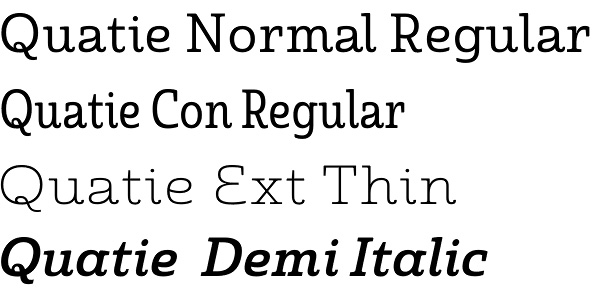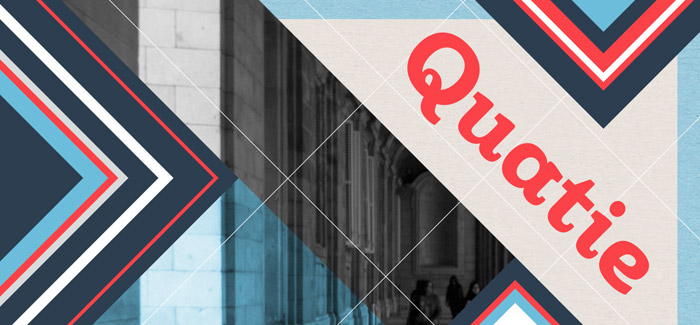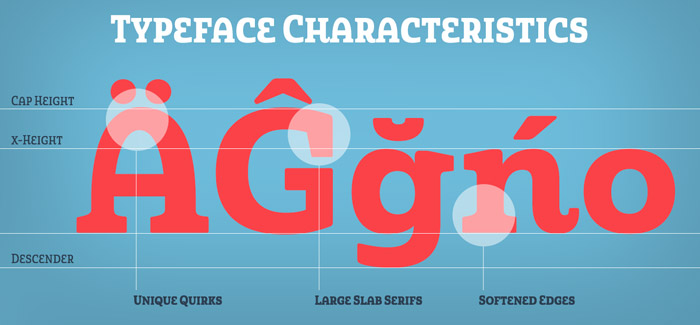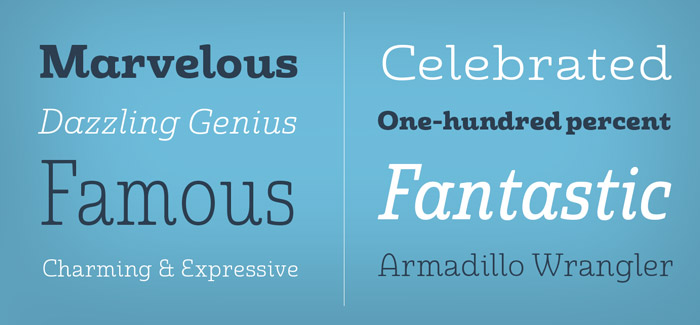
Quatie font
Quatie font emerged as a conceptual approach from the Chatype project of Jeremy Dooley and Robbie de Villiers. Like the Official Font of Chattanooga, Tennessee, Quatie demonstrates a contemporary, hipster feel. In 2013 Jeremy Dooley revived the Quatie type face from its latent more technological look, designated for the Chatype’s final image, and refined it for commercial release. This bracketed slab with its slightly rounded, soft edges adds a warm, retro, industrial element to Insigne’s offerings. The resulting quirky, ‘hipster’ vibe of Quatie lends its voice to give an unparalleled edge to your designs.